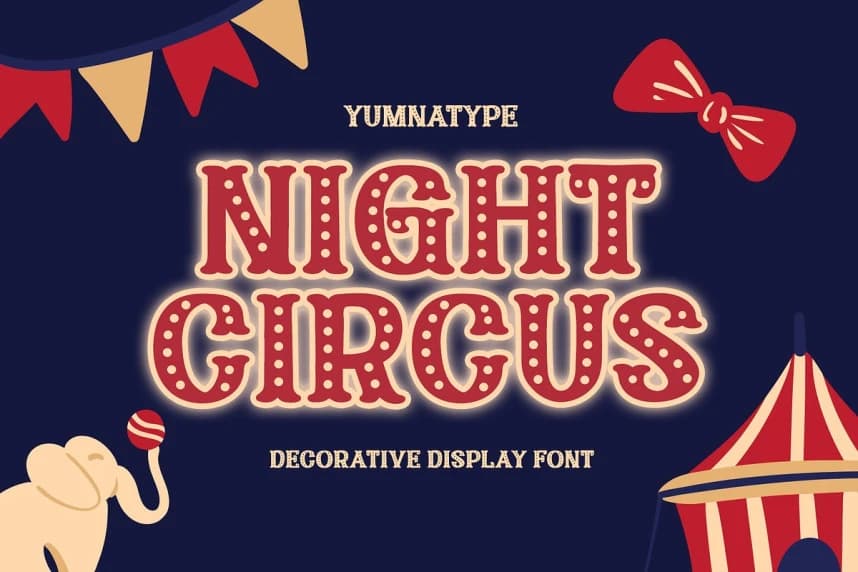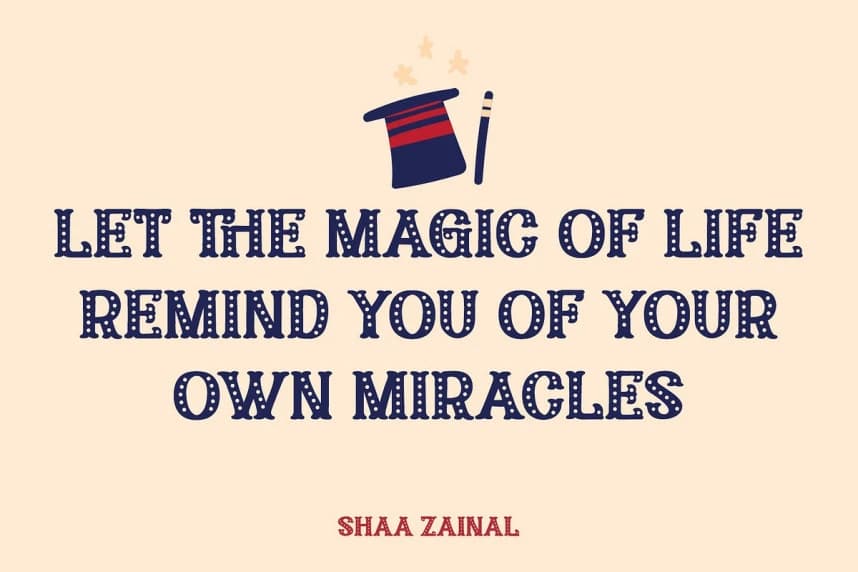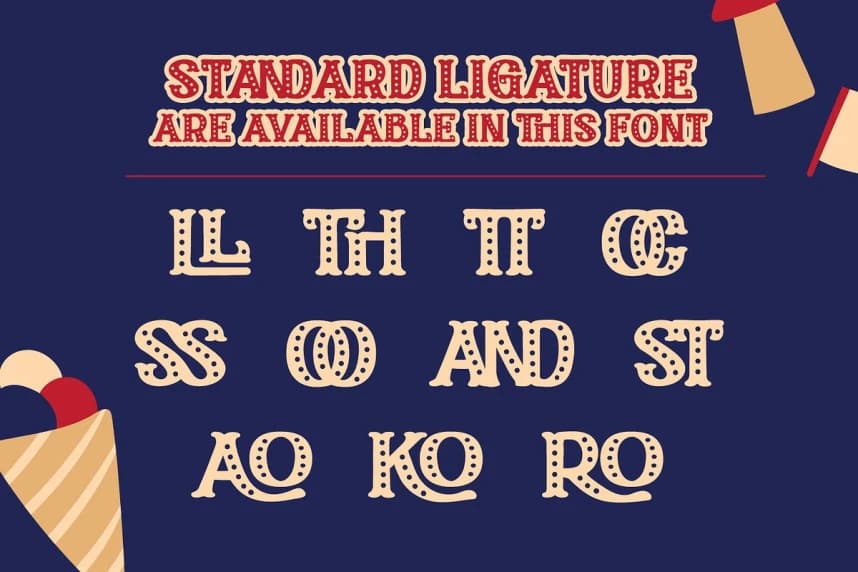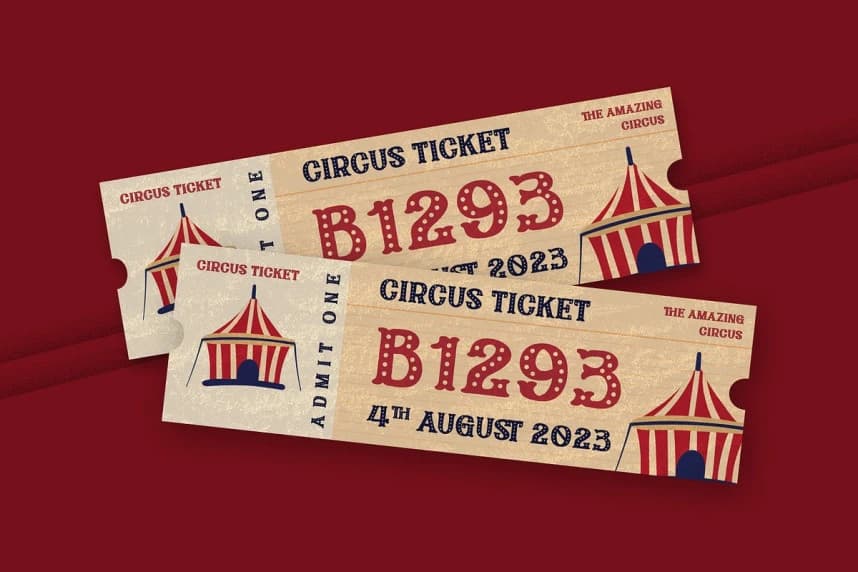
Night Circus Font
Night Circus Font is a capitalized display font in a circus theme having unique, interesting designs with big, prominent letter sizes to catch attention. All of its letters are peculiarly designed in bright colors and many decorative circus elements.